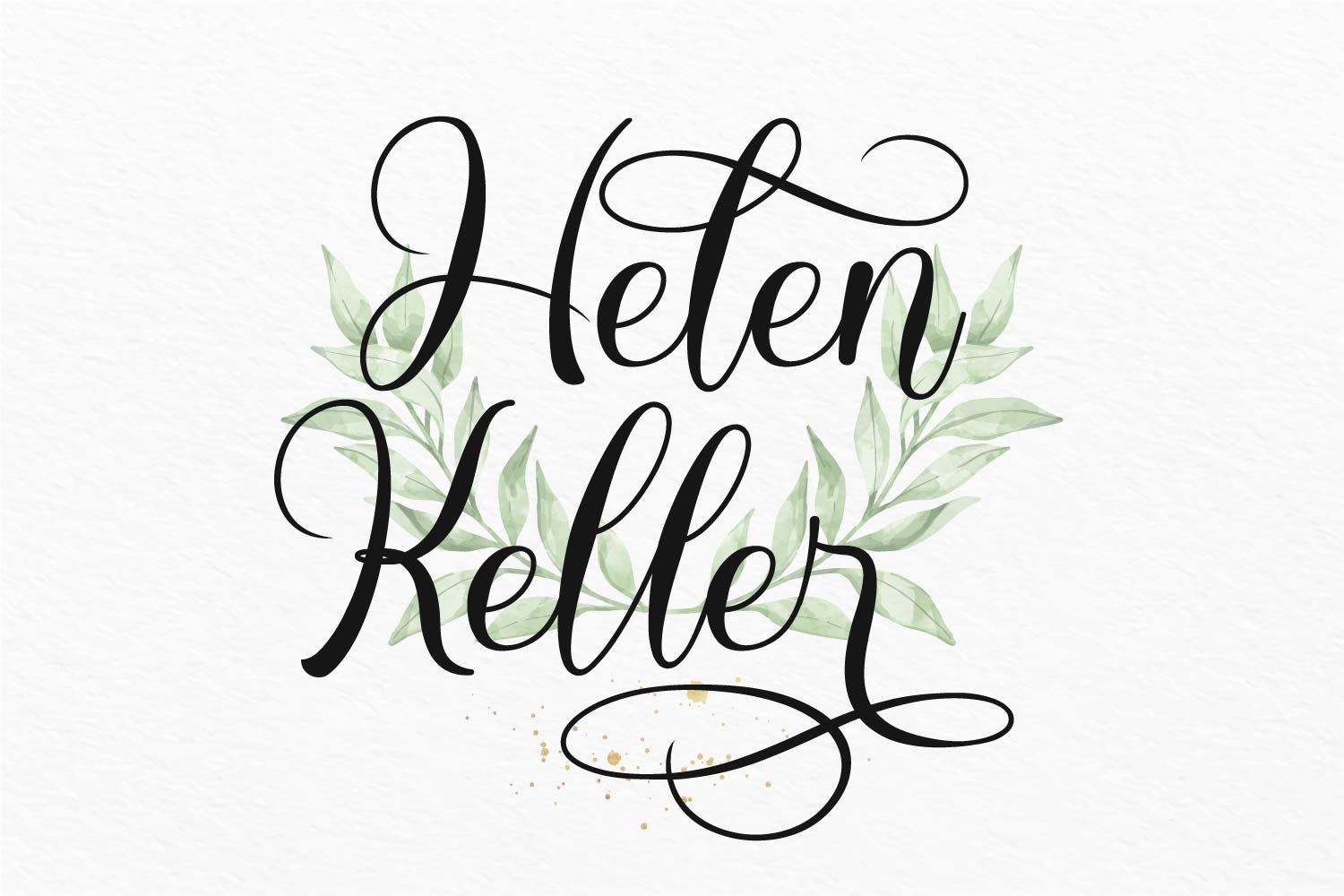
Maternella
Maternella offers a perfect balance of sophistication and artistic flair, making it the ideal choice for creating stunning designs. With its graceful letterforms and exquisite swashes, this font adds a touch of elegance to wedding invitations, branding projects, packaging, and more.
Experience the versatility of Maternella with its comprehensive set of uppercase and lowercase letters. Craft visually striking compositions and typography that leave a lasting impression on your audience.
Enchant your designs with Maternella’s extensive range of numbers and punctuations. From eye-catching headlines to beautifully rendered body text, this font ensures seamless harmony and consistency throughout your projects.
Break language barriers and connect with a global audience using Maternella’s multilingual support. Seamlessly communicate your message in different languages, ensuring your designs resonate with diverse communities and cultures.
Unlock the full potential of Maternella with its PUA encoding, offering access to special characters, ligatures, and alternates. Customize your designs with unique swashes and flourishes, adding a touch of individuality and sophistication.
Maternella Elegant Script Swashes Font